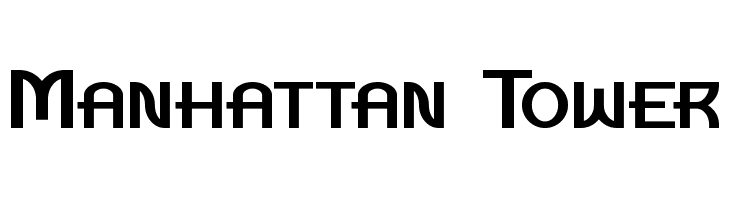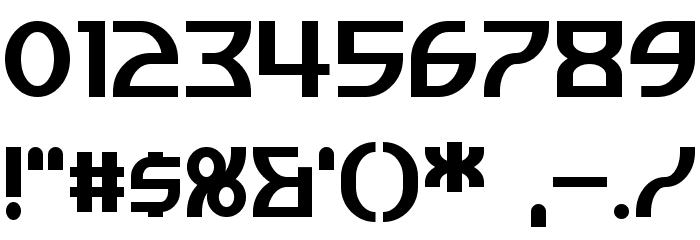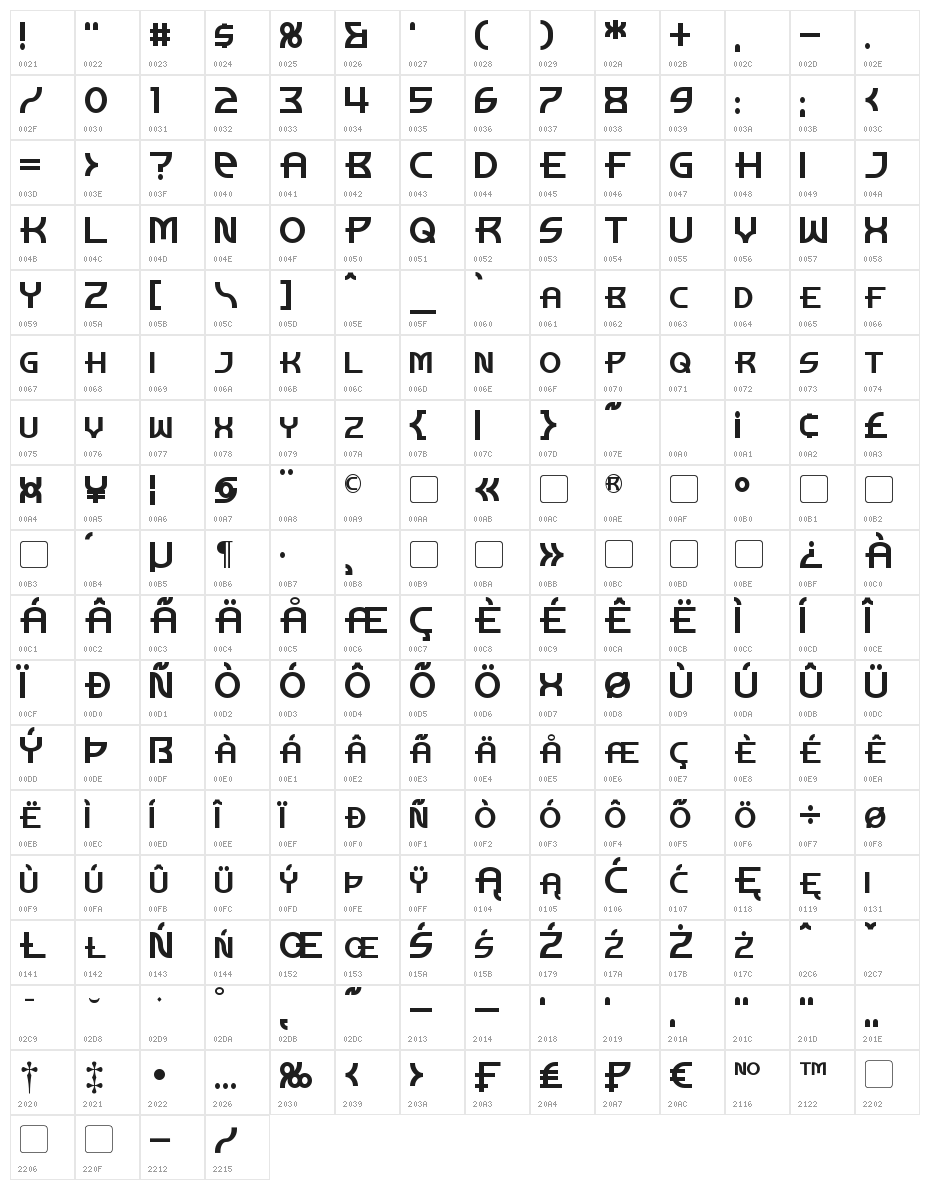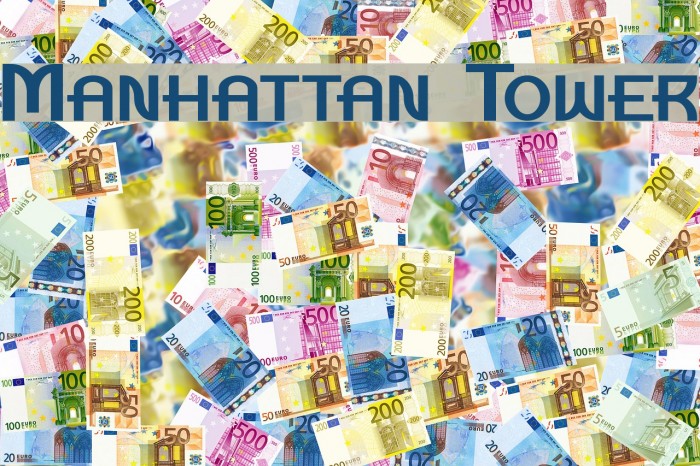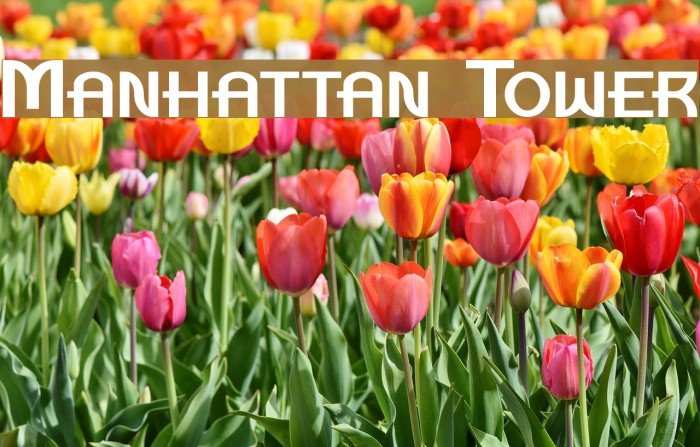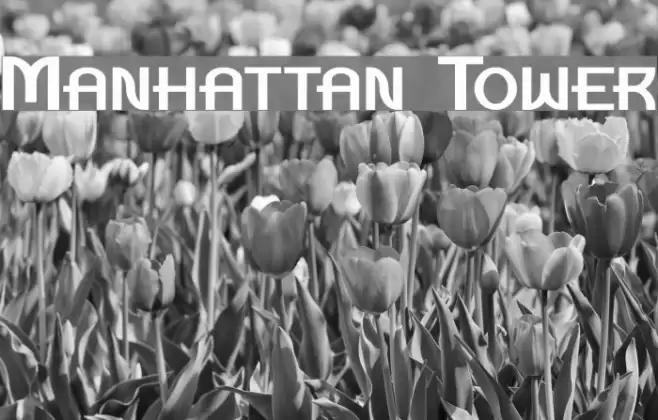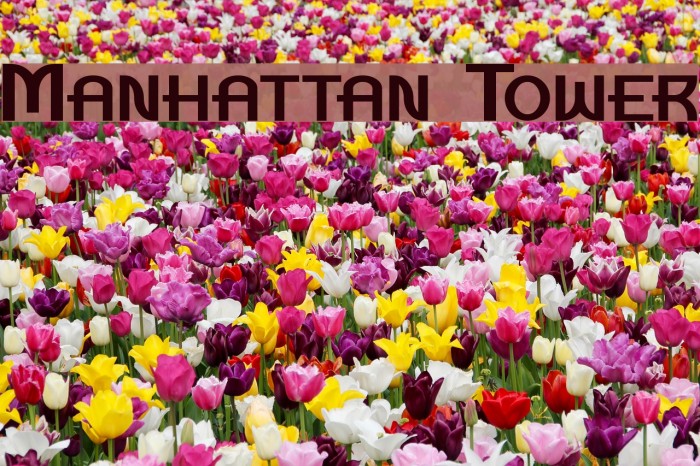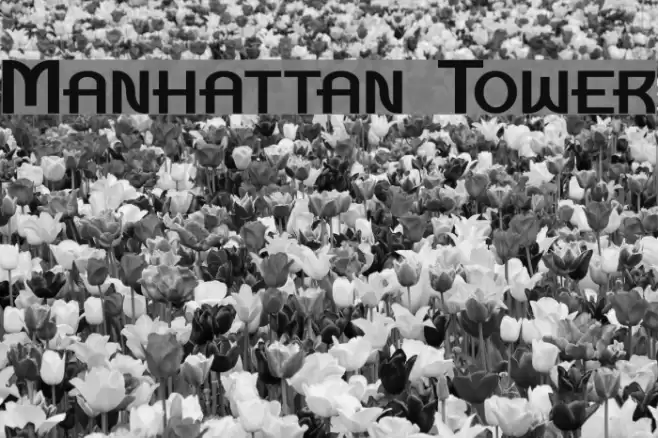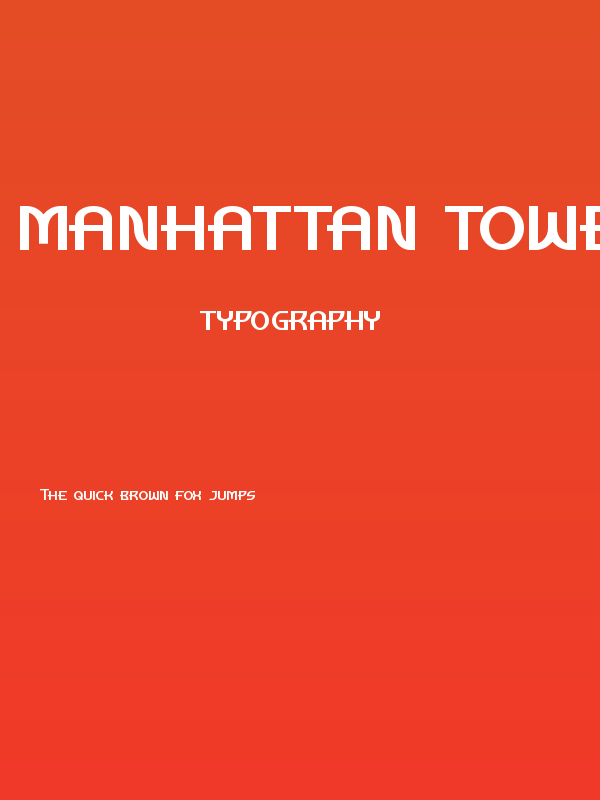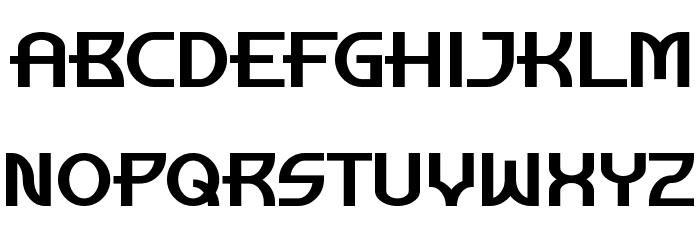
Manhattan Tower Font
Manhattan Tower Description
This font features a bold and geometric design with a modern flair. The characters are constructed with thick, uniform strokes that create a strong visual impact. The angular and slightly rounded edges give it a unique, futuristic appearance. The uppercase letters are particularly striking, with a consistent height and width that contribute to a cohesive look. The numerals and special characters maintain the same boldness and geometric style, ensuring a harmonious overall design. This font is ideal for projects that require a modern and assertive typeface.
| Proposed Projects | Ideal for branding, headlines, posters, and digital media that require a strong visual presence. |